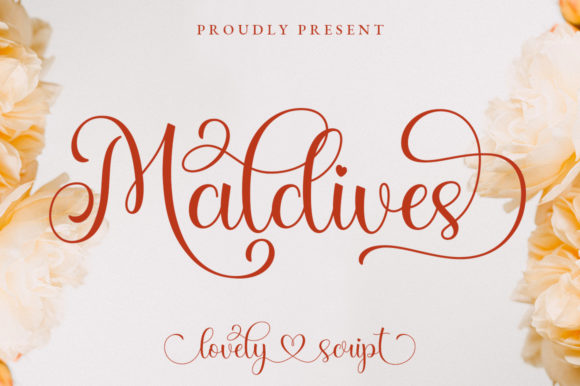
Behold the Maldives Font, a breathtaking script font that dances with grace across your digital designs. Its thin, elegant letters are like whispers of enchantment, inviting you on a journey of creativity. Capture the romance and timeless beauty of handwritten notes with Maldives.
Unleash your artistic flair with Maldives, the perfect font for crafting visually stunning wedding invitations. Its delicate curves and flowing lines bring an ethereal charm to your special day. Envision your guests' awe as they receive invitations adorned with Maldives' captivating script, setting the tone for an unforgettable celebration.
With Maldives as your creative companion, craft stunning stationary art that speaks volumes. From delicate letterheads to elegant envelopes, let your words dance across the page, enhanced by Maldives' enchanting presence. Your stationary will exude an air of sophistication and charm, leaving a lasting impression on all who behold it.
Harness the power of Maldives to create social media posts that captivate and engage your audience. Its graceful letters will effortlessly draw attention, inviting your followers to dive into your content. Let Maldives elevate your brand's online presence, making each post a visual masterpiece that resonates with your audience.
Maldives, a font brimming with versatility, awaits your creative touch. Whether you seek to weave captivating stories in your blog posts, design eye-catching logos that leave an indelible mark, or create marketing materials that inspire and persuade, Maldives stands ready to be your trusted ally.